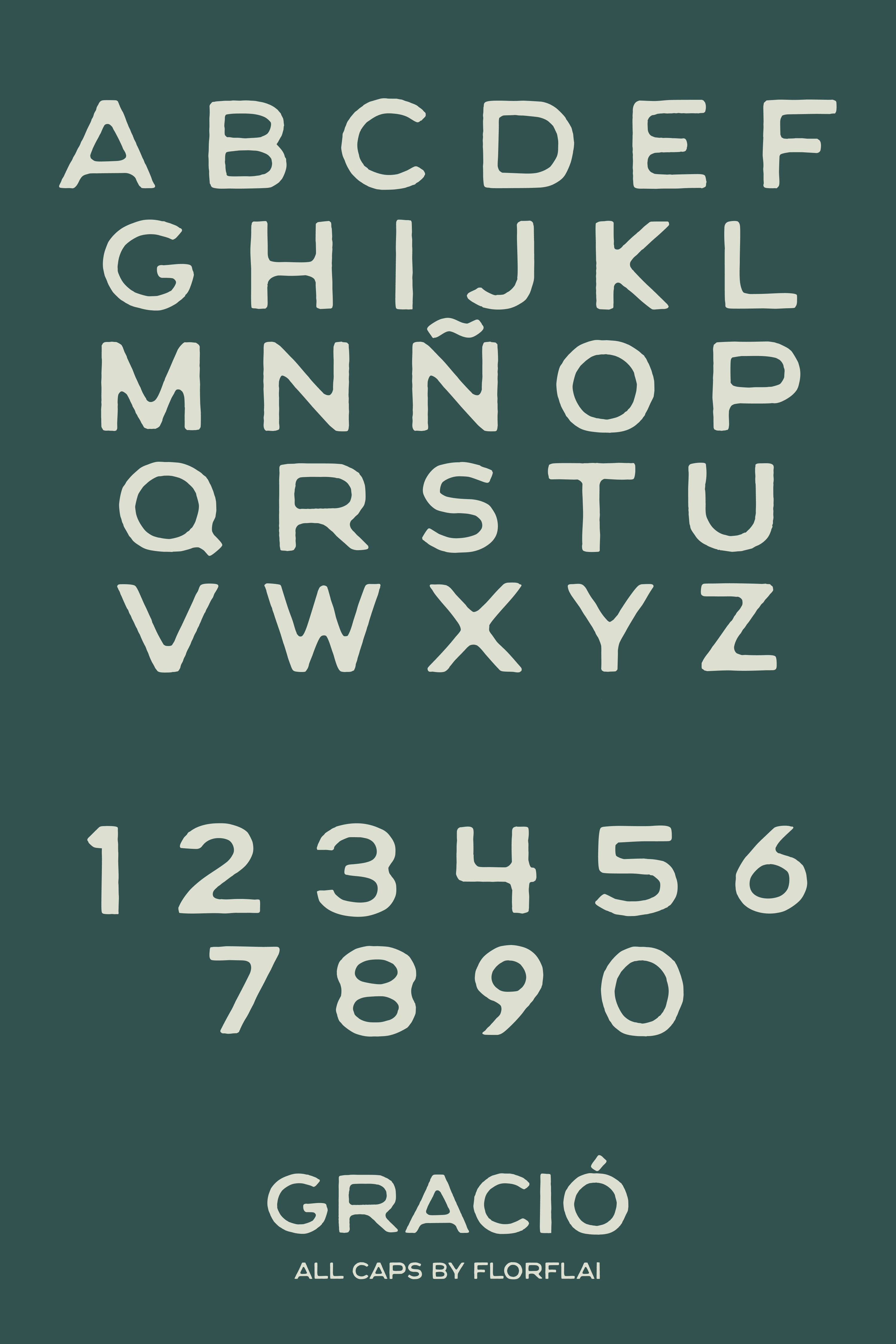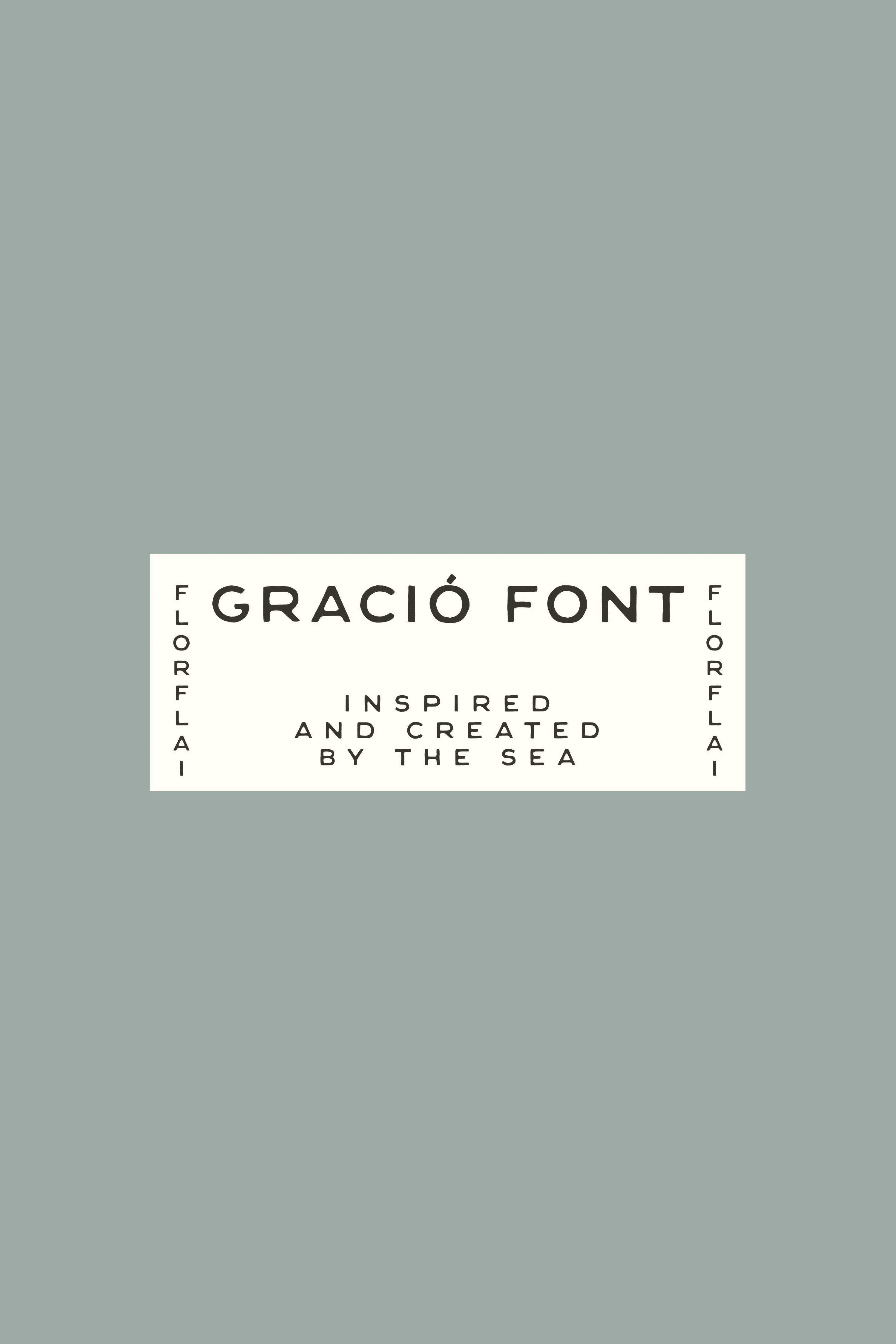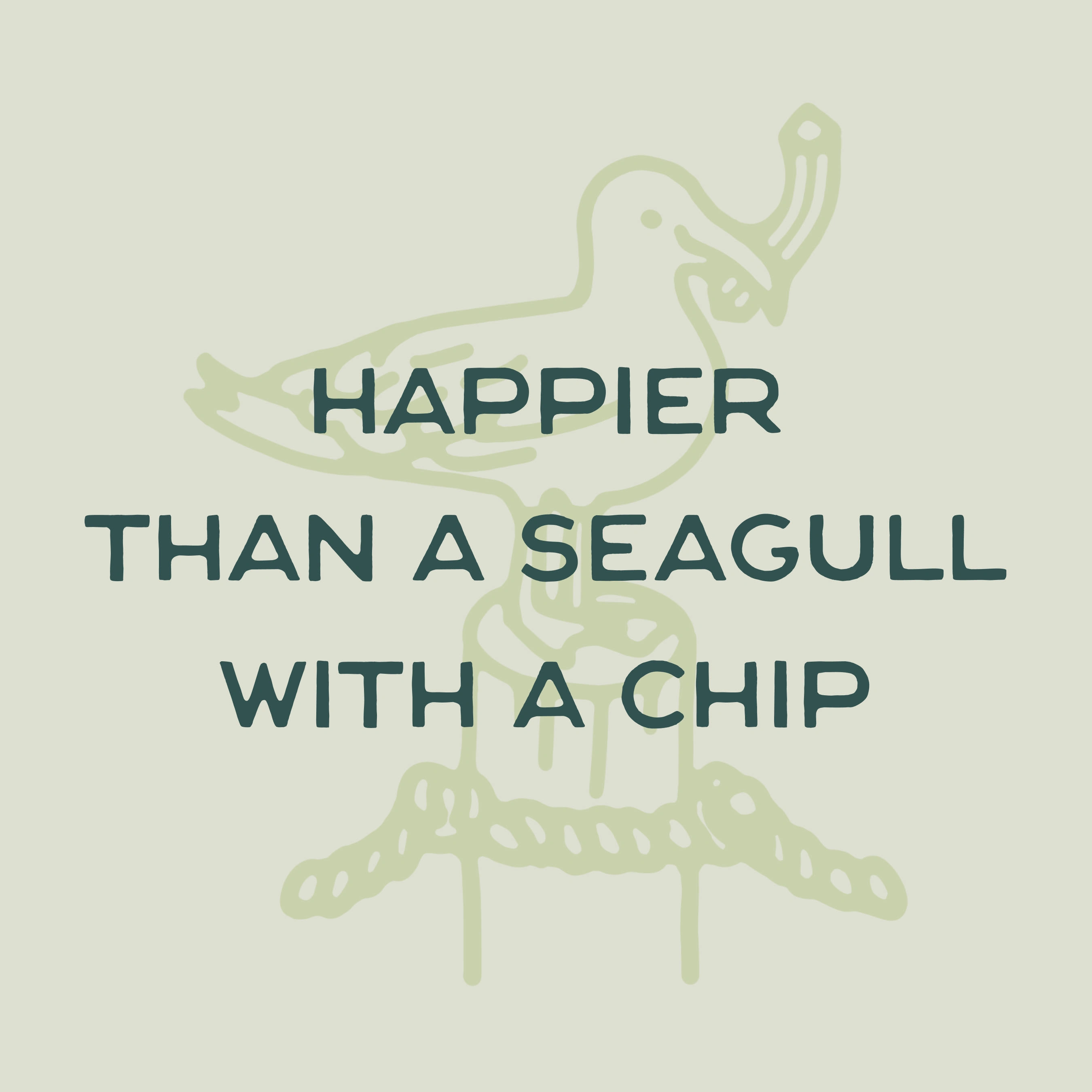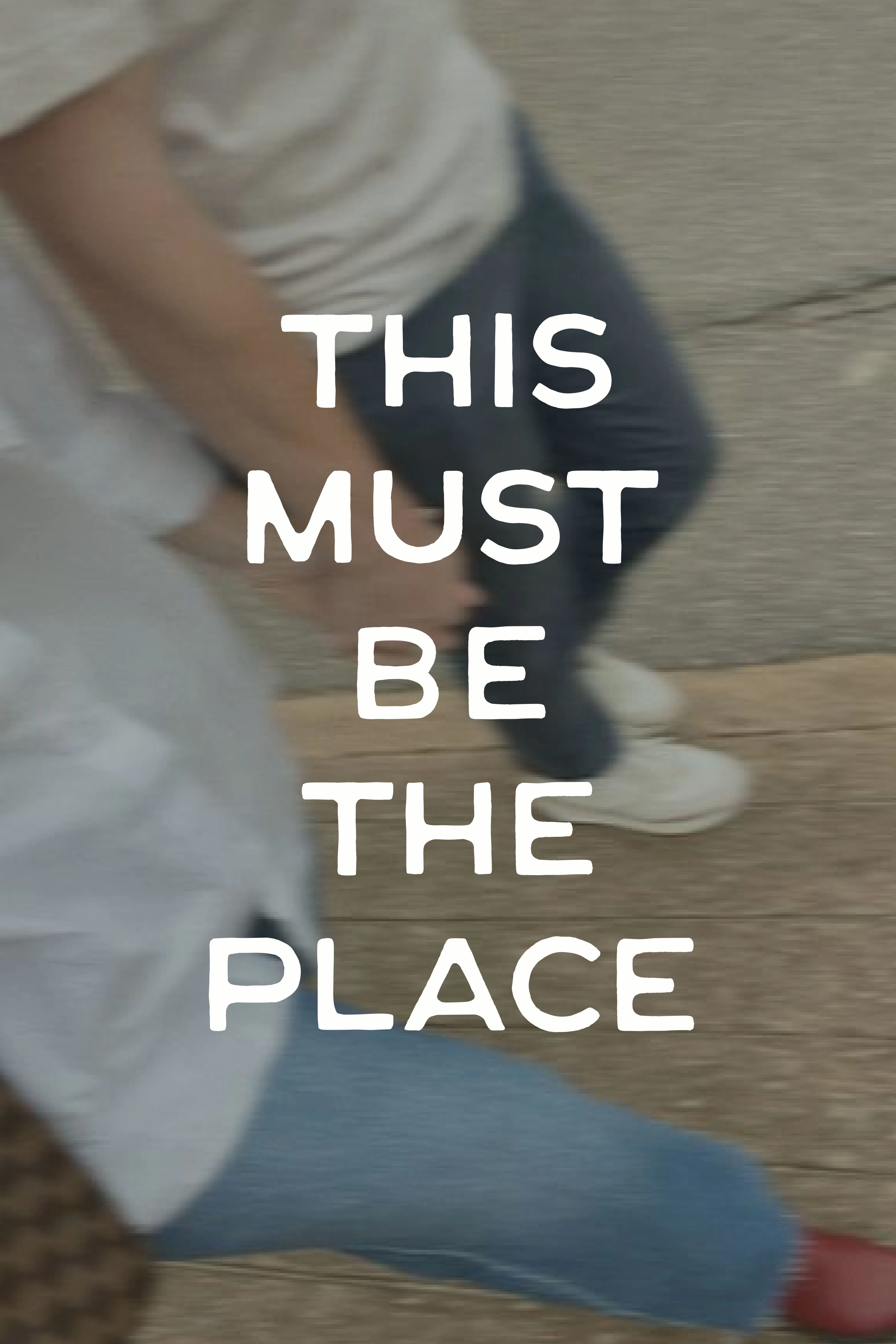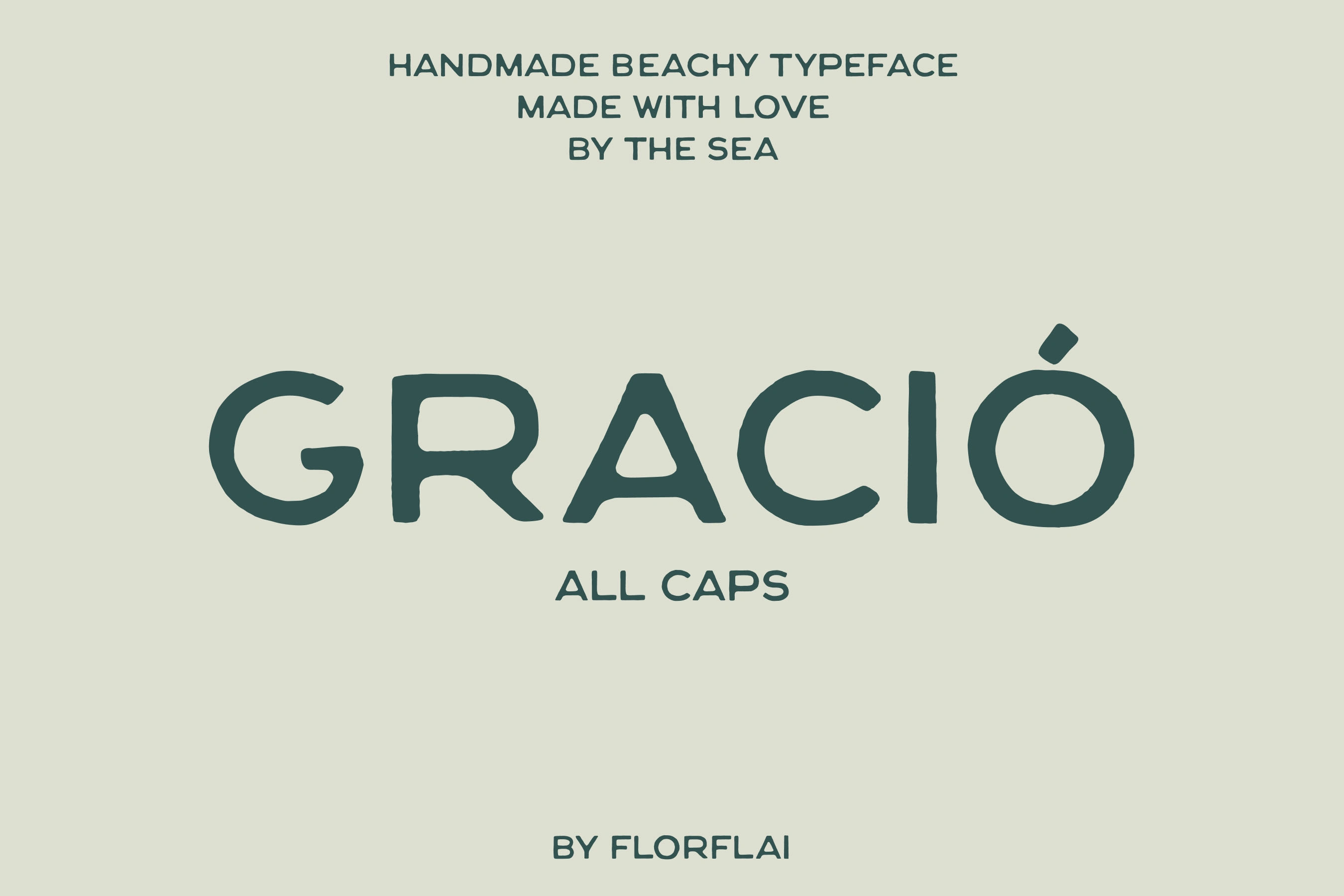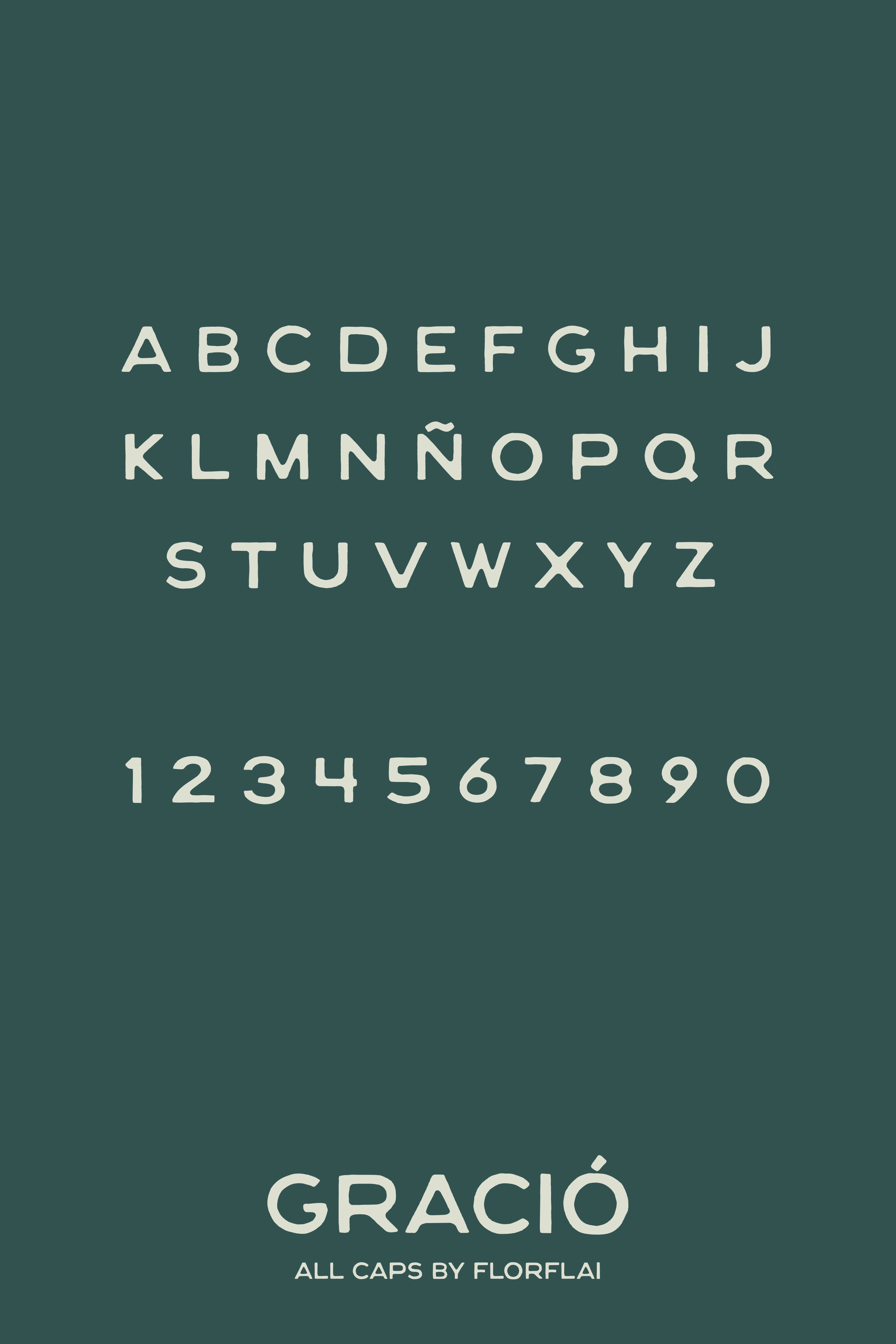
Florencia Sudy
Handcrafted sans serif font inspired by Ibiza’s coastal vibes. Perfect for branding, social media, and adding a natural, relaxed touch to any design.